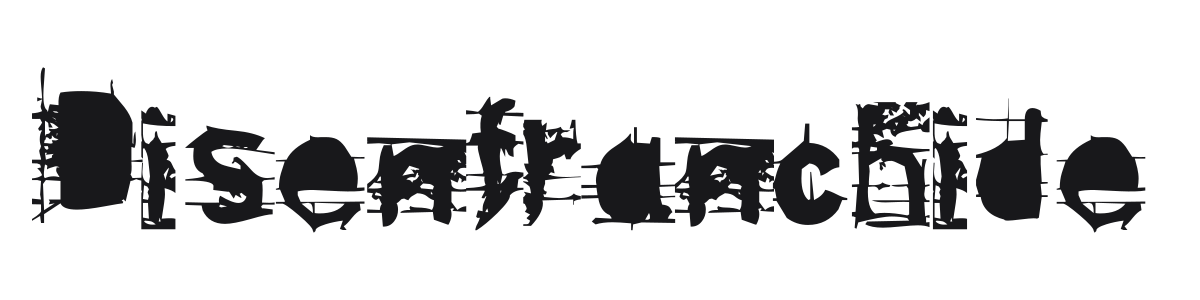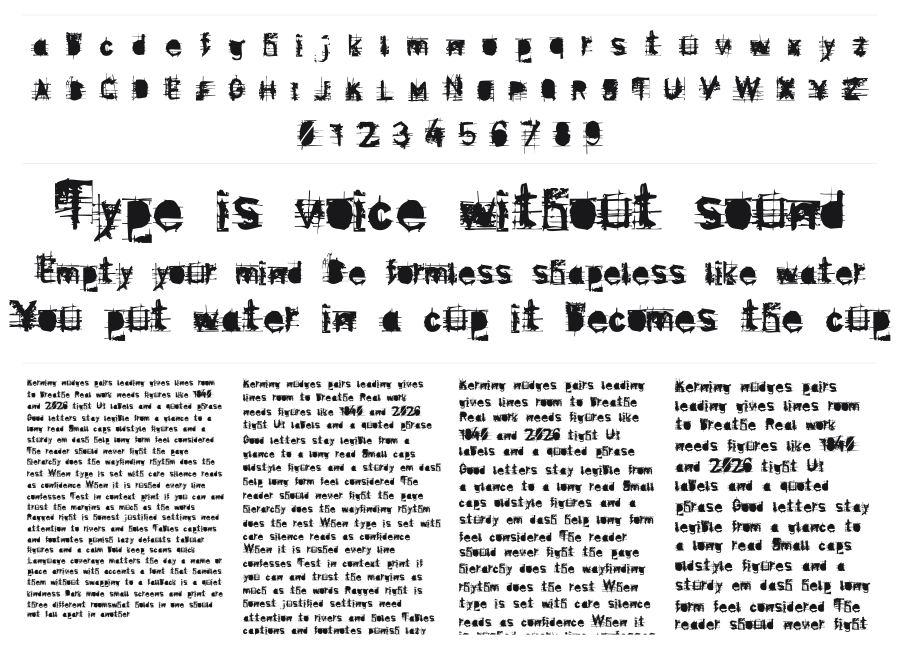
Disenfranchide
Disenfranchide is a heavy distressed display font built entirely from broken, corroded strokes that look like they've been dragged through rust and torn paper. The underlying structure is legible at a glance, but the surface is consumed by scratches, blotches, and fragmenting edges that give it a raw, punk energy. It suits large-scale headline work where chaos is the point.